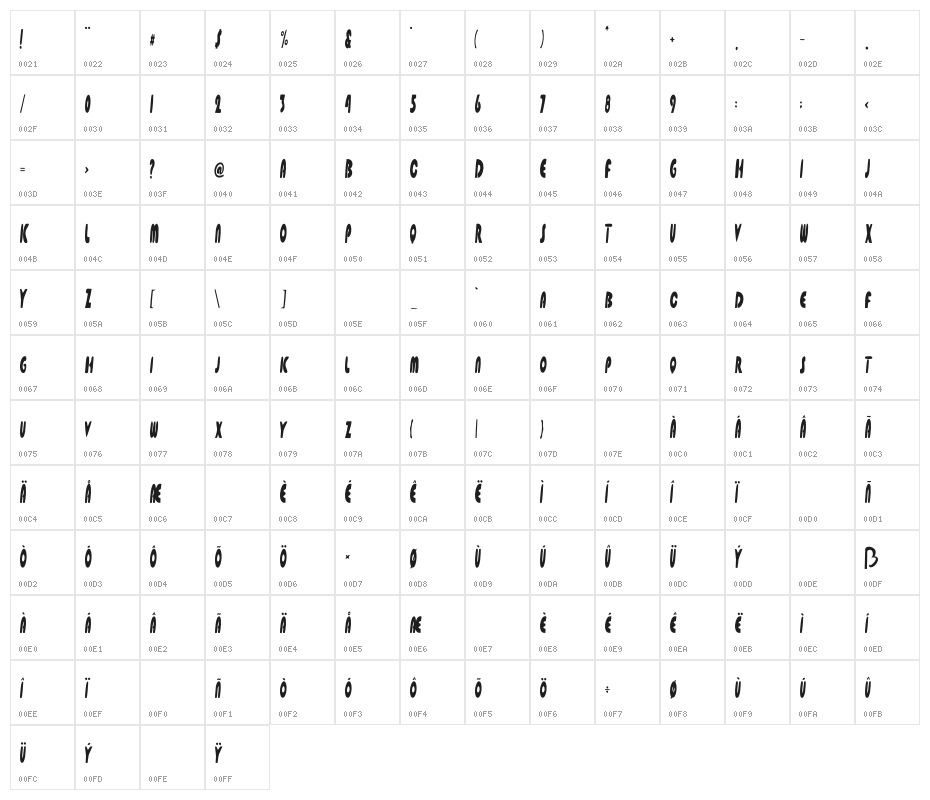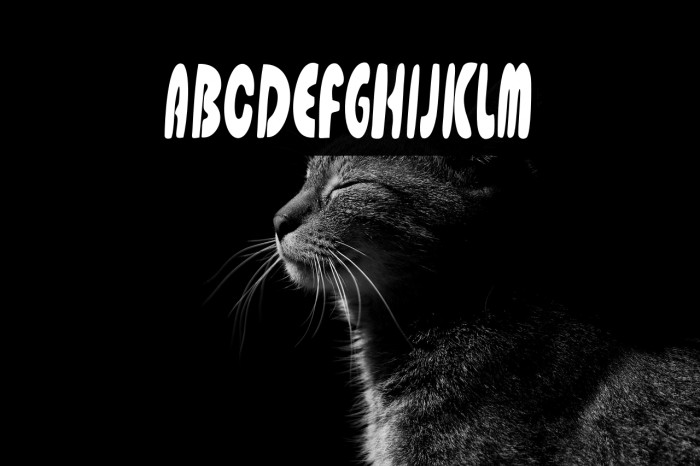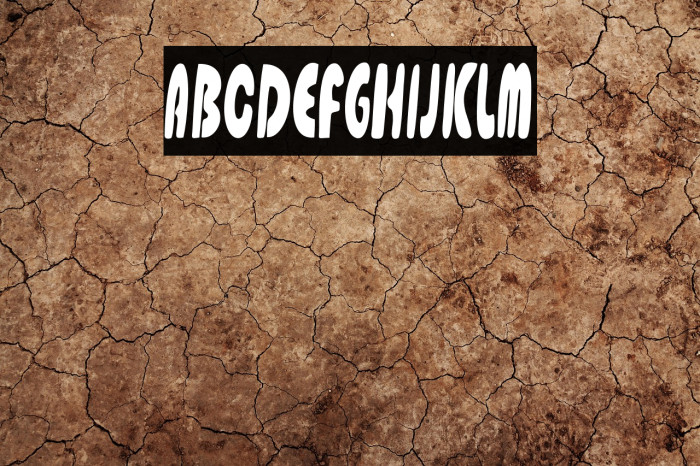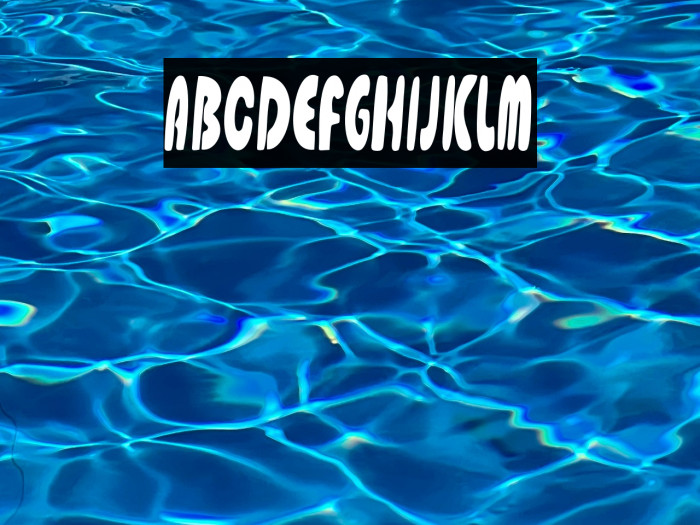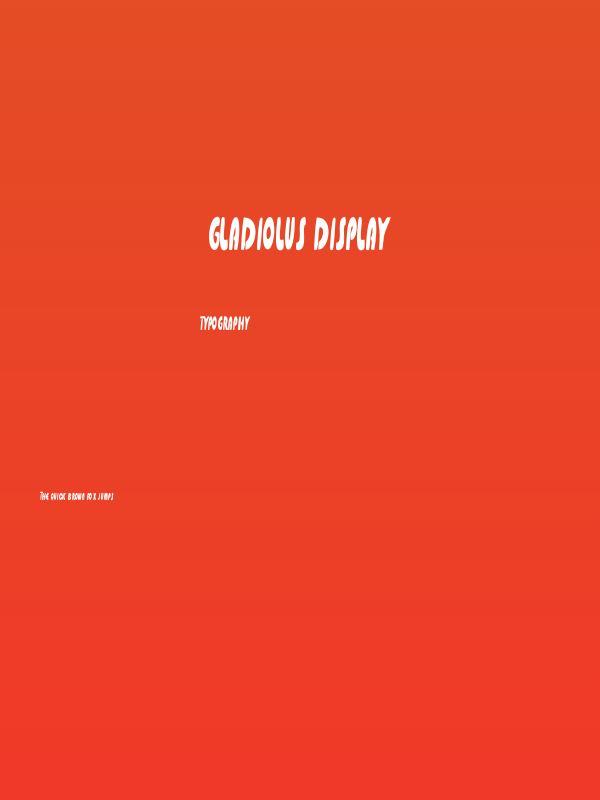
Gladiolus Display Font
Gladiolus Display Description
This font features a bold and playful design, characterized by its thick, rounded strokes and slightly condensed letterforms. The uppercase and lowercase letters share a consistent style, with a whimsical flair that adds a sense of fun and creativity. The numbers and special characters maintain this playful aesthetic, making the font suitable for eye-catching designs. The overall appearance is dynamic and energetic, with a modern twist that makes it stand out. The font's unique style is perfect for projects that require a bold statement and a touch of personality.
| Overall Style | Modern, Playful |
| Proposed Projects | Ideal for posters, children's books, branding, and creative advertising. |